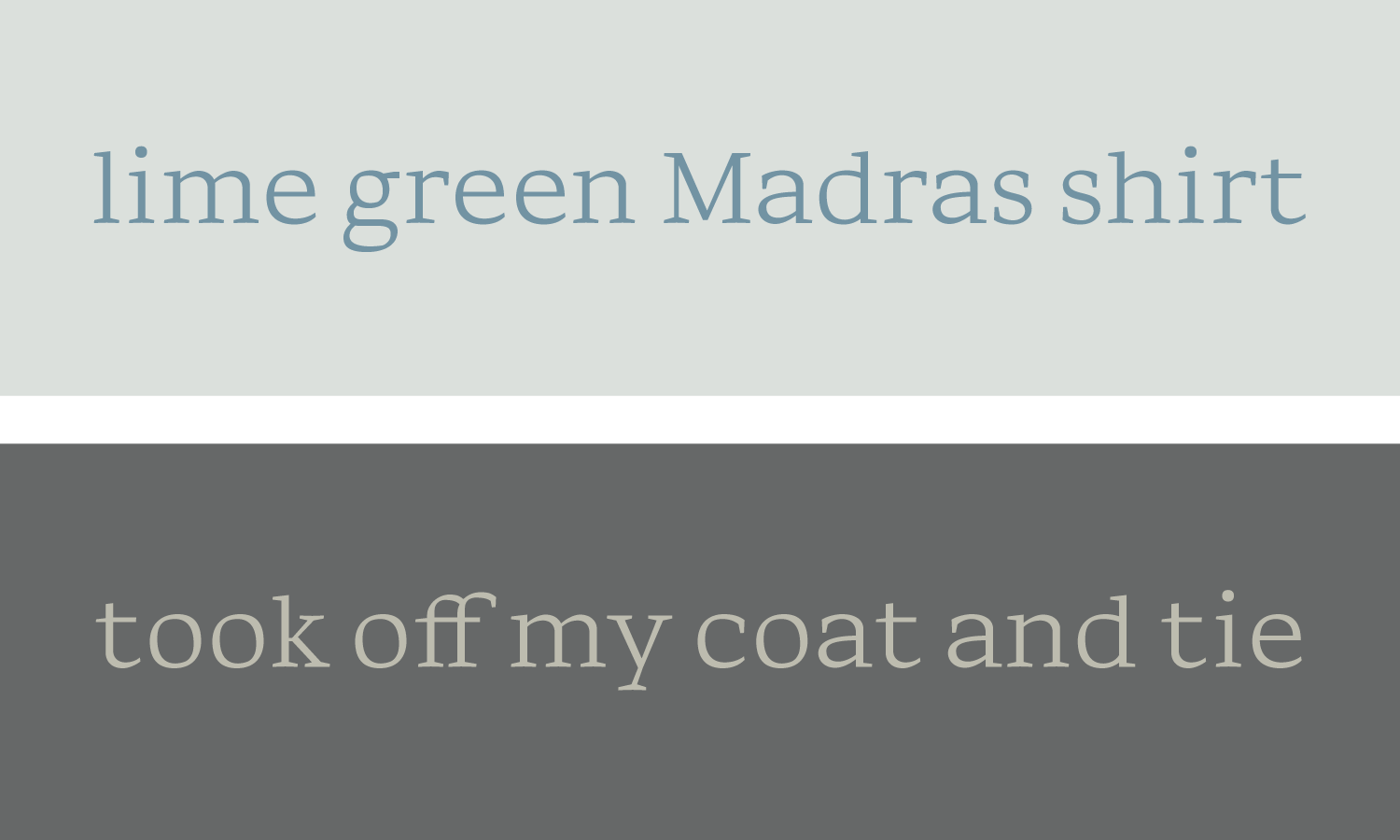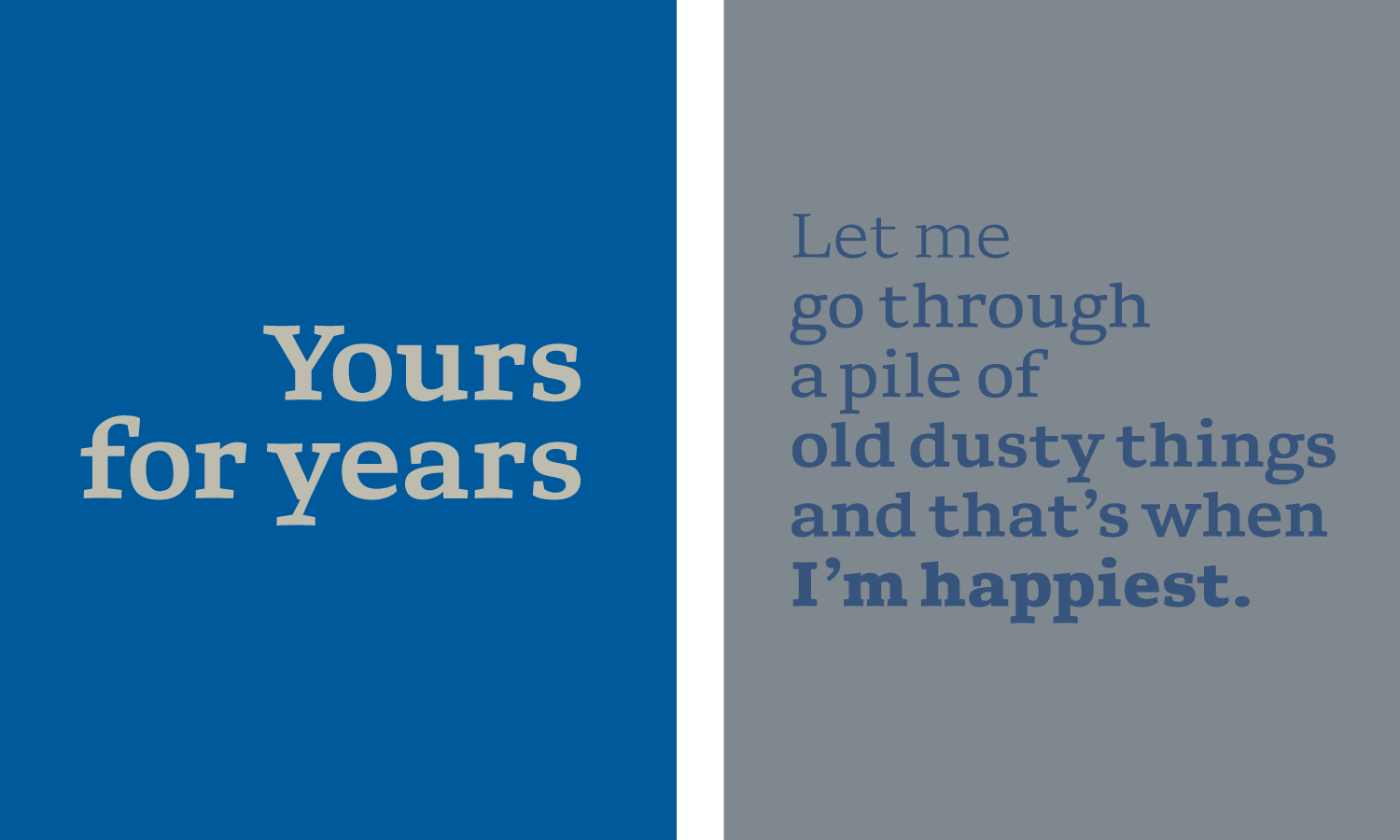
Newberry
Typeface
An original text typeface in four weights, designed to evoke comfort, ease, and informality. Inspired by hard-working apparel and honest objects from this year and yesteryear.
Its casual charm suitably pairs with vintage selvedge denim, timeworn mid-century furniture, and patinated rare collectibles